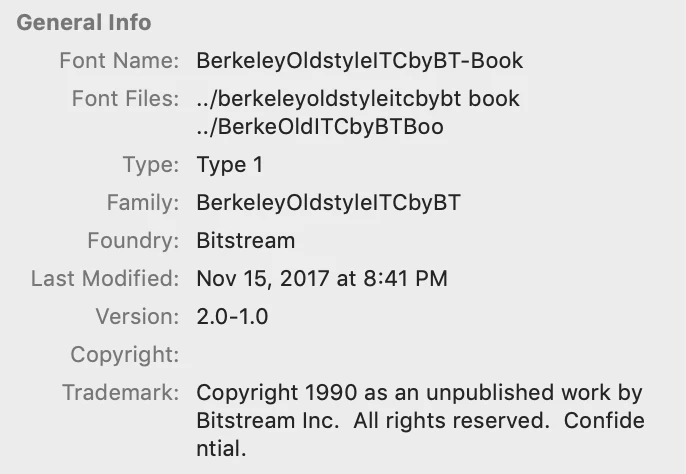
Berkeley Old Style font - Is it still around
I've used a font called "Berkeley Old Style" for a layout in Adobe InDesign in 2019. I jsut tried to locate it in Adobe Fonts and the message says it can't find it. Does anyone know what happened to that font in Adobe. Or is there an alternative font I can use?
I used to use ITC Berkeley Old Style a lot in the 1980s at a type/graphic design studio. For me, it displayed class and respect.
It was a Type 1 font which are no longer supported
It's true that Type 1 fonts are no longer supported. OTF versions of ITC Berkeley Oldstyle are available from several sources as Steve \ and other folks here have said.
Okay, I'll check it out. The last time I was in the business and used ITC
Berkeley OS was 35 years ago. As I recall, the face was commissioned by UC
Berkeley around 1910 to be used for its forms.
I think it started as a Bitstream font in the early 90s:
Adobe definitely had it as well from the beginning. "Standard" OpenType versions were also available in Adobe OT Font Folio. That being said @rodd4988956, it's worth picking up the revised Pro versions available at Fonts.com as mentioned by Steve. Since the source is the same foundry, it would be the same outlines Adobe used to license if you have old files you want to resurrect, but with the expanded glyph set and other OpenType features of the Pro.
It shows up on a lot of other font sites; but not on fonts.adobe.com. It looks like an ITC font.